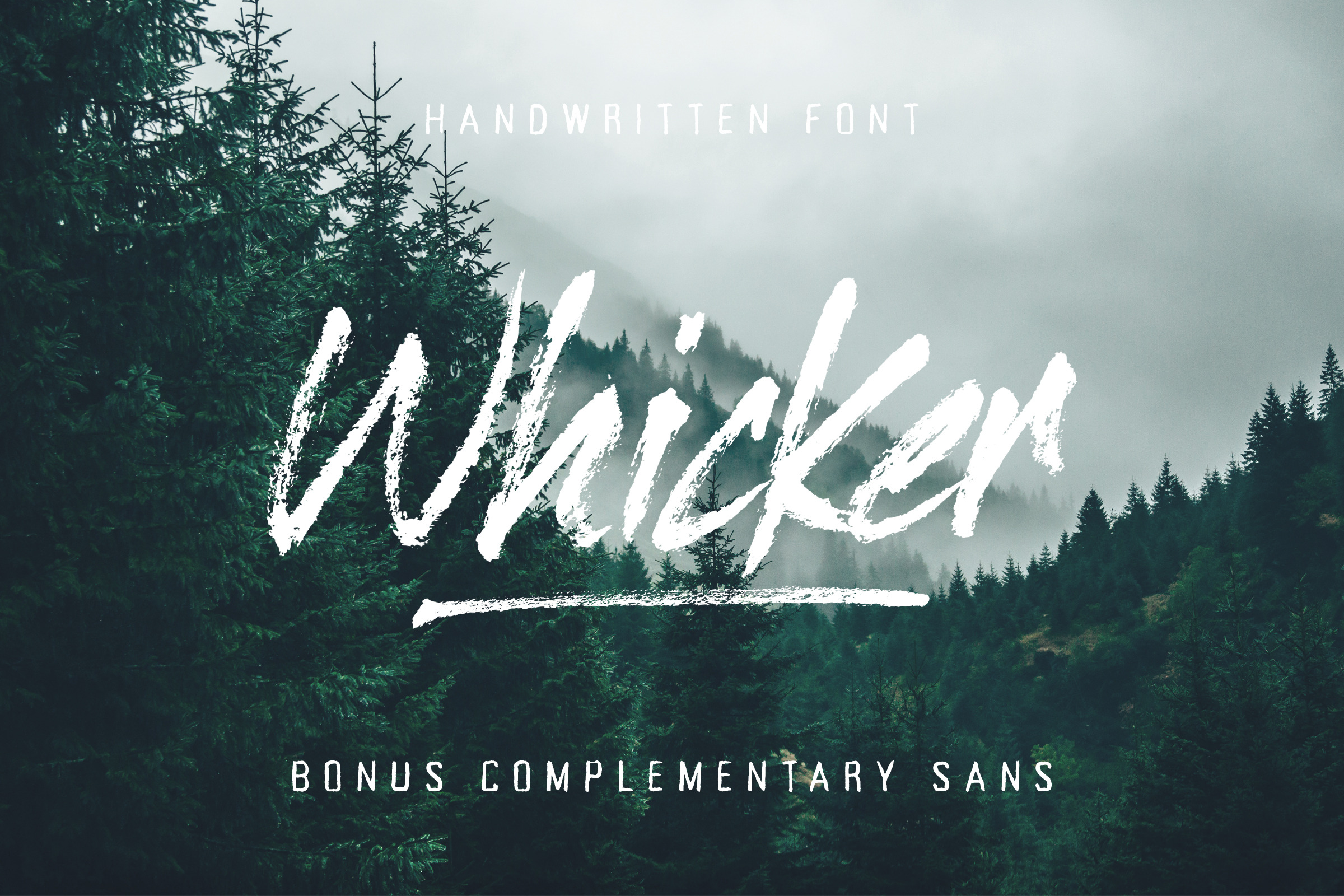
Whicker Font Duo
Introducing the Whicker Font Duo. An expressive and creative font that is perfect for grabbing attention and making a statement!
I'm pleased to finally launch my handcrafted brush font Whicker and its complimentary sans-sidekick. They function great on their own, but truly shine when combined! Perfect for logos, quotes, apparel, branding, headlines and anything that you want to draw attention to!
Every common and many uncommon letter combinations have had OpenType kerning rules applied to them to ensure that Whicker is always on top form with minimal editing (Kerning = The spacing between the letters).
All of the uppercase letters in the Whicker typeface have stylistic alternatives available. Some letters look much better than others in specific situations, so don't hesitate to experiment with these! Also, the following punctuation glyphs - _ = + ~ / are handy brush strokes!
- Whicker Brush Font (Multilingual, stylistic alternatives, and brush stroke extras)
- Whicker Bonus Sans (Multilingual, all capitals, and small capitals)